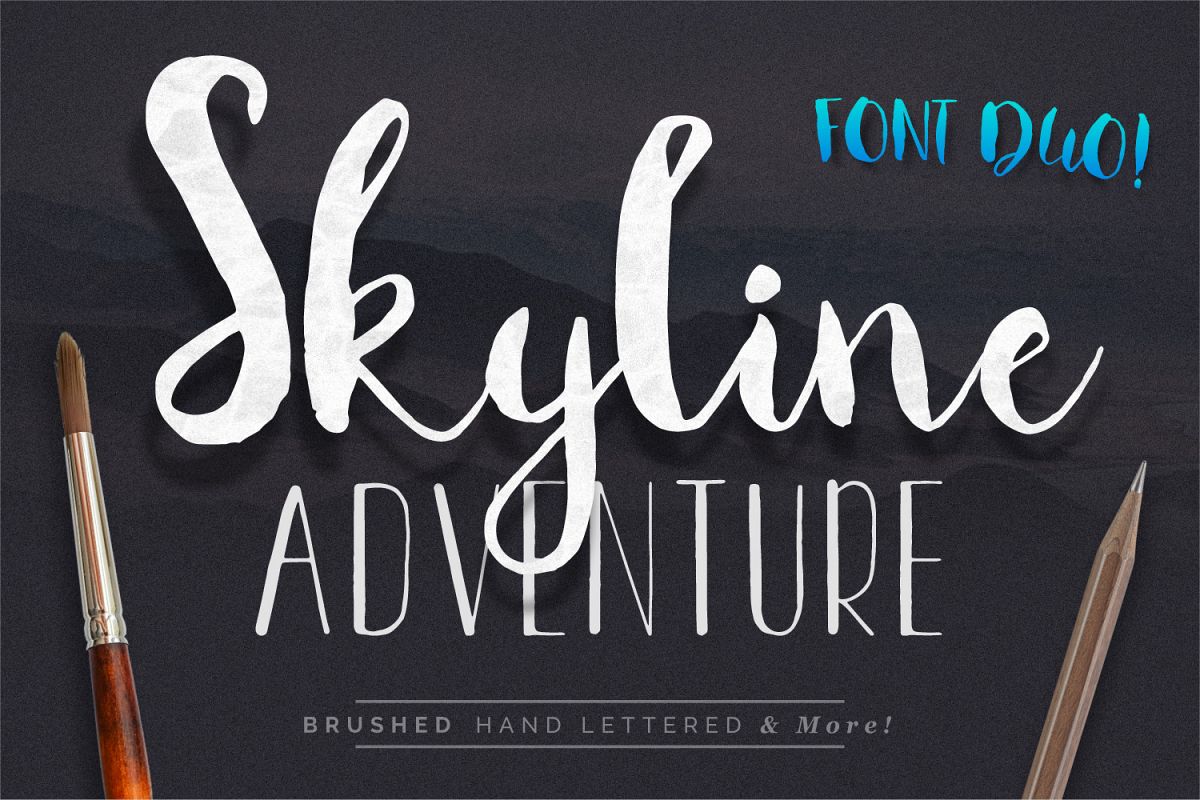
Font Duo Skyline Adventure
Skyline Adventure Font Duo is a handmade brushed typeface collection with an adventurous, handmade feeling. Two fonts are included:
• Skyline Brushed: Brushed watercolor script typeface. Complete character set with ligatures and multilingual support. Includes complete punctuation.
• Capital Adventure: Fineliner,all-caps font with wide spacing. All caps multilingual support including punctuation.